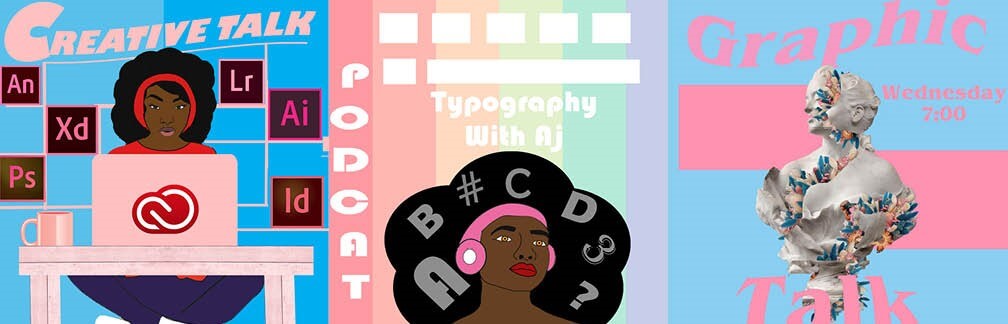
Design ideas and design process
Podcast covers are a visual representation of what the talk is about. It connects the creator to the listener, so for my first podcast cover, I started off with an illustration of me.
First Image
The first podcast cover draft I did not like it because it was too busy. Each logo was not able to show, and it lacked space, so for the final design, I shrunk it. I decided to have blue and pink as the background colour because they are light colours and would work with the illustration rather than against it. This allows the viewers to see each logos without the illustration clashing with each other.
The second draft, I reduce the numbers of adobe app logo I should use and colour. I used a light shade of blue. However, the image looked boring to me, and the colours did not seem to blend, which resulted in me darkening the illustration complexion. I could not choose the right shade of blue I wanted to use, thus me combining them and doing a half and half background.
I wanted to show some of the most used creative cloud software for graphics design. However, I edited the logo colour to match the colour scheme of the podcast. I like the final image because I was able to use space to surround each element of my design. I darken her skin tones because I wanted her to stand out more from the background.
Second Image
The image gave me an indie aesthetic which is I like because it allows me to experiment with less professional fonts. I thought it was interesting to put different typeface on her hair, and it stood out more because the hair colour is black.
I decided to not use the first and second background because the colour was too bright. The reason I first started with a bright colour was that from my inspiration, it used bright colours; however, I felt the colourful pastel works best cause it calm and aesthetically pleasing.
Third Image
The third podcast cover I used a cutting tool to bring the sculpture about and show the flowers. This was the easiest to among the three and only involved me using the cutting tool and watching a simple tutorial on how to create a flower sculpture effect.
I wanted to show artwork that is typically done on photoshop. I like it because the idea of flowers coming out of art sculpture is simple but aesthetically pleasing. It is also a different way of doing a podcast cover without having to have a self-illustration but yet still looking interesting and a showing skill.
The only problem I had with this podcast cover was what to do with the background without making the cover too busy.
I used the warp tool to create the yellow background behind the sculpture. I initially thought the colour yellow brought out the sculpture; however, after analysing it more, I realise it was pointless to have it on the podcast and decided to just keep it simple.
For this project, I did not use that much tutorials to guide me with my work as I am already familiar with the essential feature of photoshop. However, I did watch videos for how to draw using illustrator and that helped me for two of my podcasts covers.
My initial plan was to watch a tutorial on how to draw on Photoshop. Still, most of the tutorials were complicated and outdated, so I decided to use illustrator because it was more beneficial. I was not confident in my skill in illustrator, and this was my first time using it.
With the tutorial, I was able to get a basic understanding of the tools I was meant to use. I drew the illustration using my laptop pen, not realizing that I could have just used the pen tool which could have saved me a lot of time. I used the pen tool in my second illustration and the image came out neater
I designed my background with photoshop, the tools I used the most was the Image Adjustment: colour balance and hue/saturation tools. The goal was to change the colours of the adobe app to pink so that it can match the laptop and desk.
My third podcast, I watched a tutorial on how to design a flower portrait. The tutorial was simple and involve mainly using the cutting tool. The reason this tutorial was helpful was that I did not know how to place the flowers on the sculpture to show the effect of it emerging from the sculpture.
I do not believe I got the effect to its full potential. However, I do like how it stands out and people can easily identify what I am trying to illustrate.
The skills I need to improve are how to follow through with an idea. Doing this work, I have had so many ideas for what I would like to do with the podcast cover. However, I lack the skills to do them, and that leads to me abandoning the idea and getting frustrated.
This was my first time doing digital drawing and the result turning out nice. I am very proud of the works I produced, so I wanted to be included in my cover.
From an article by Price, I learnt that a podcast cover is what connects the listeners to the podcast. “That it is very important how you design a podcast cover that why most of my podcast designs have illustration because I wanted to set the mood and build the world of your show before the audience even starts listening.” (M Price, 2017)
Podcast covers should not be too busy and chaotic with load colours because this is what connects the listeners to the creator.